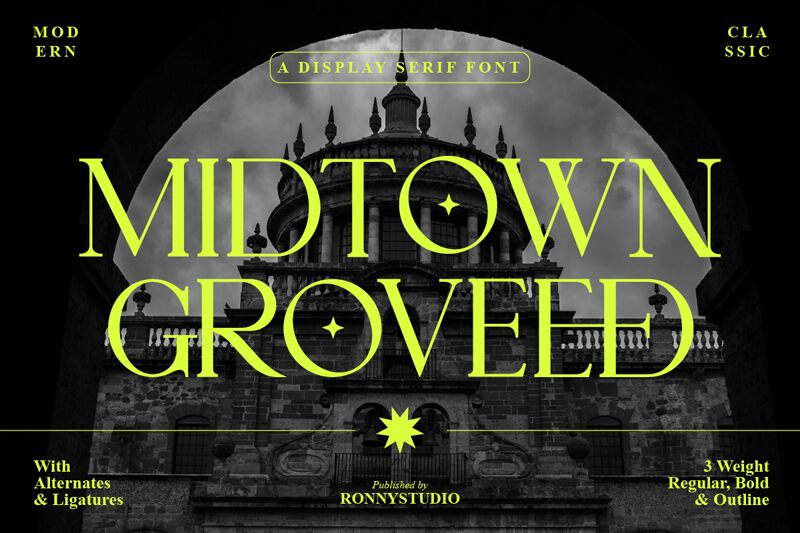
Midtown Groveed is a beautiful serif font designed by Ronny Studio. It features an elegant, light style perfect for creating stylish and sophisticated projects. Whether you’re designing a logo, crafting an invitation or constructing a website, Midtown Groveed is the ideal font choice. It offers great readability and its delicate details will give your project a classy look. Use it to create timeless designs with a modern touch!
Midtown Groveed
Ronny Studio